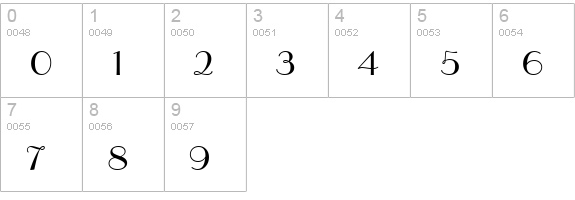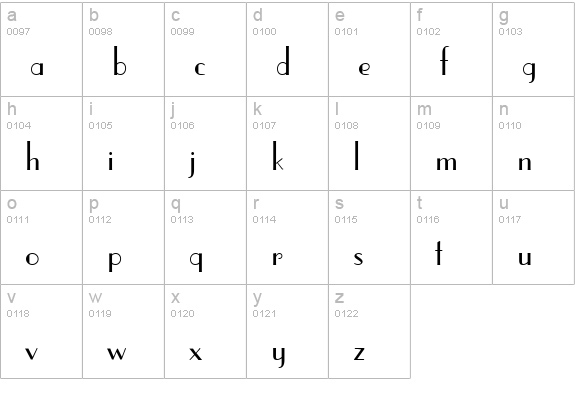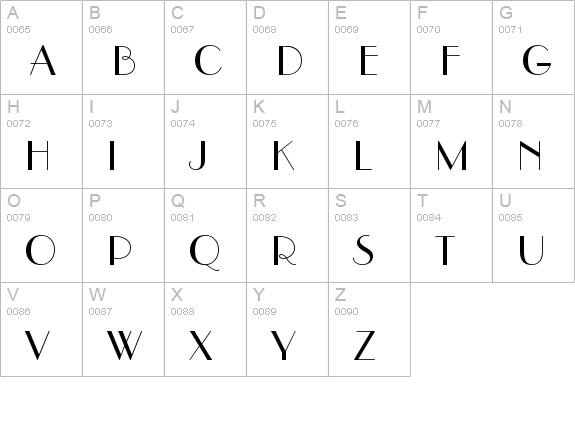
The FFX Style font is a modern and sleek typeface that combines elegance with a touch of futuristic flair. Its sharp lines and unique letterforms make it perfect for adding a contemporary edge to any design project. This font is versatile and can be used for a variety of purposes, from branding to editorial design. Best of all, the FFX Style font is available for free download at FontsMarket.com. This means that you can easily access this stylish font without any cost, making it a valuable addition to your font library. Whether you're a designer looking to try out a new typeface or a content creator seeking a fresh look for your projects, the FFX Style font is a must-have resource. Download it today and elevate your designs with its modern and sophisticated aesthetic.